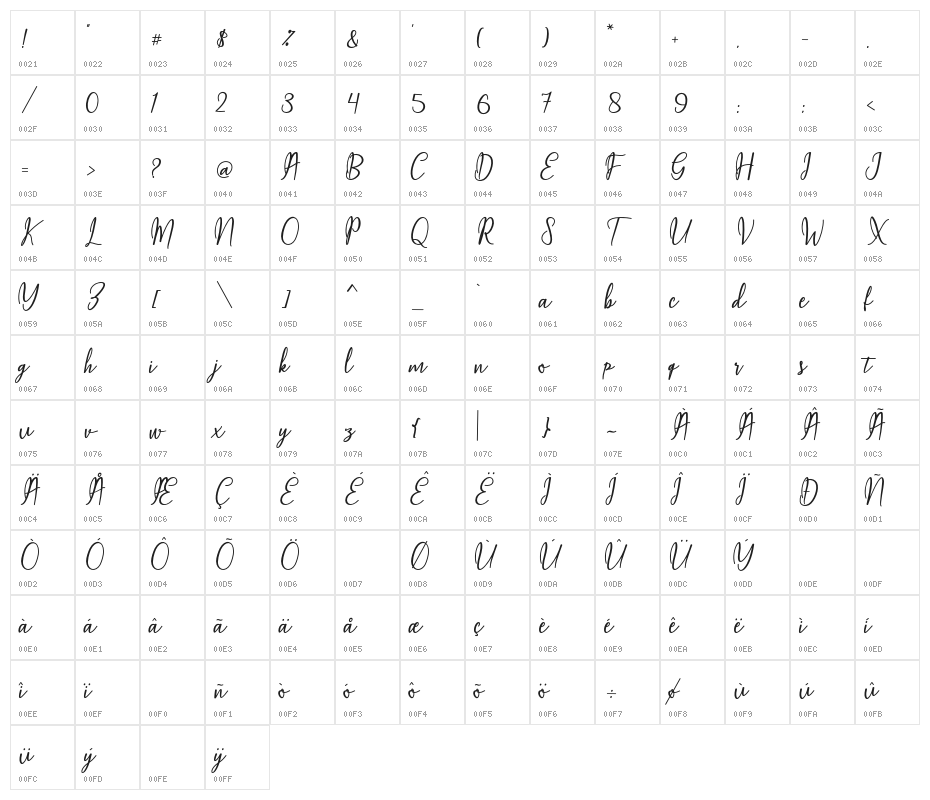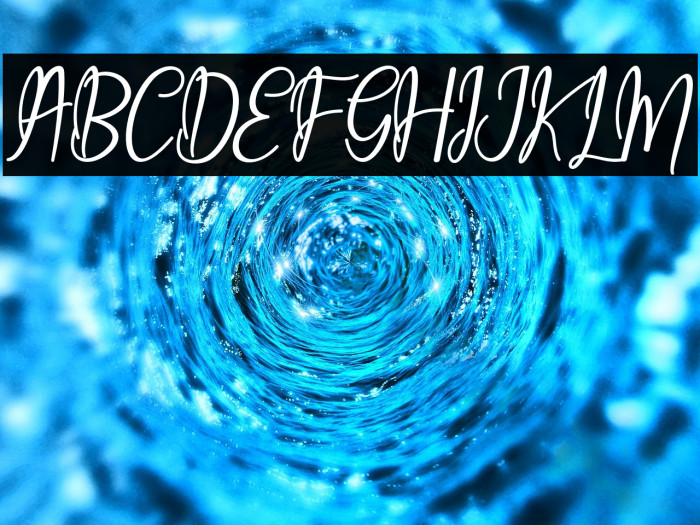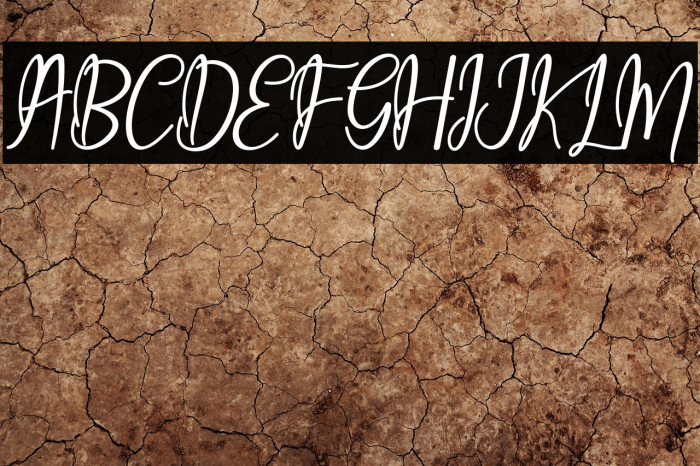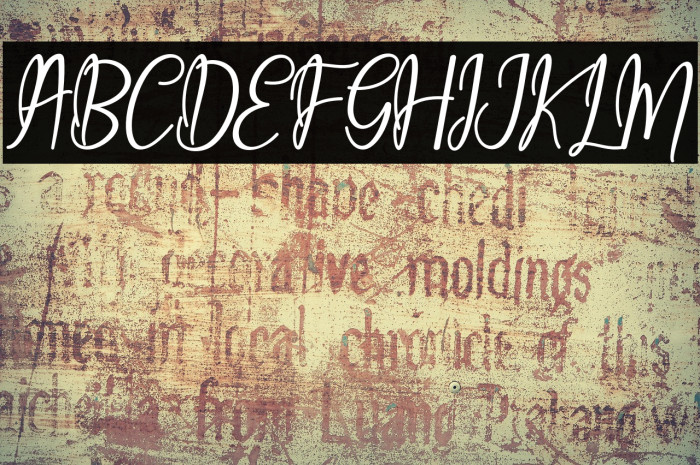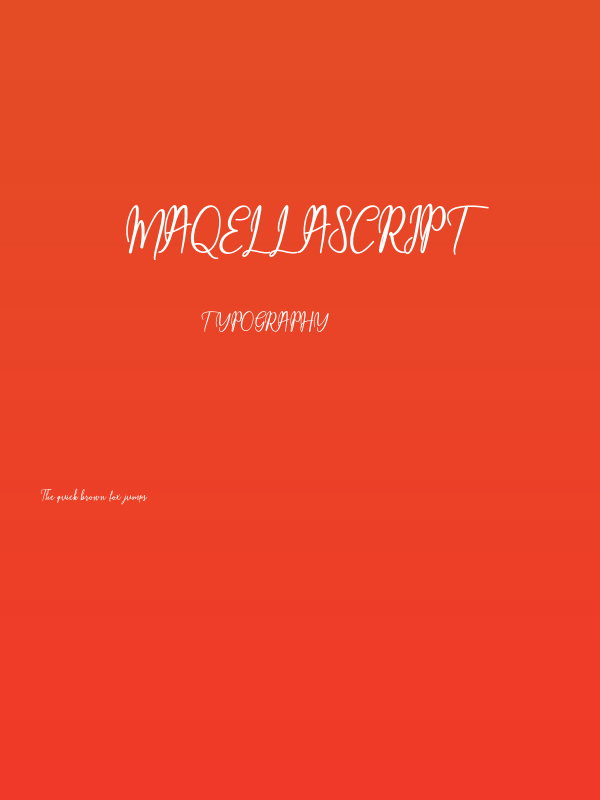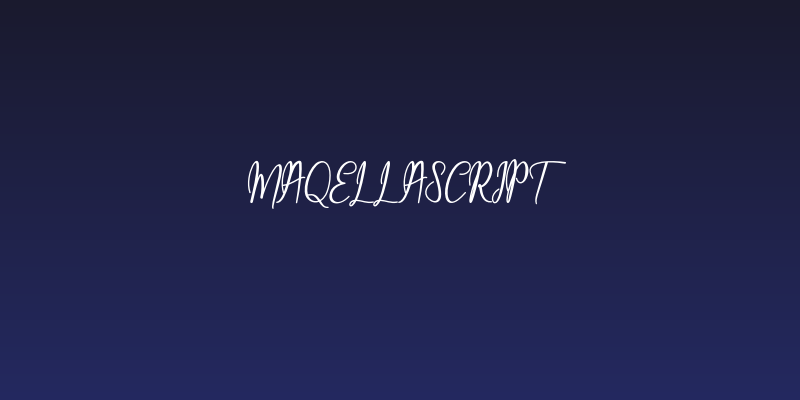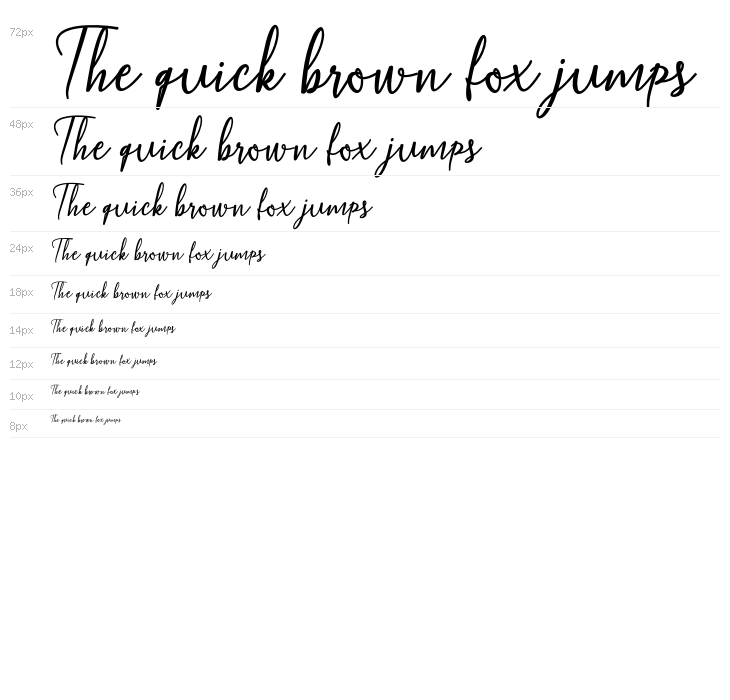
MaqellaScript Font
MaqellaScript Description
This elegant script font features fluid, cursive strokes that give it a graceful and sophisticated appearance. The uppercase letters are tall and slightly slanted, with smooth curves and loops that add a touch of elegance. The lowercase letters maintain a consistent flow, connecting seamlessly in a way that mimics natural handwriting. The numerals are clear and distinct, maintaining the same cursive style. Special characters are well-integrated, ensuring versatility in various design contexts. This font is ideal for projects that require a personal touch, such as invitations, greeting cards, and branding materials.
| Use Case | Headlines, Invitations, Branding |
| Proposed Projects | Ideal for wedding invitations, greeting cards, personal branding, and elegant logos. |